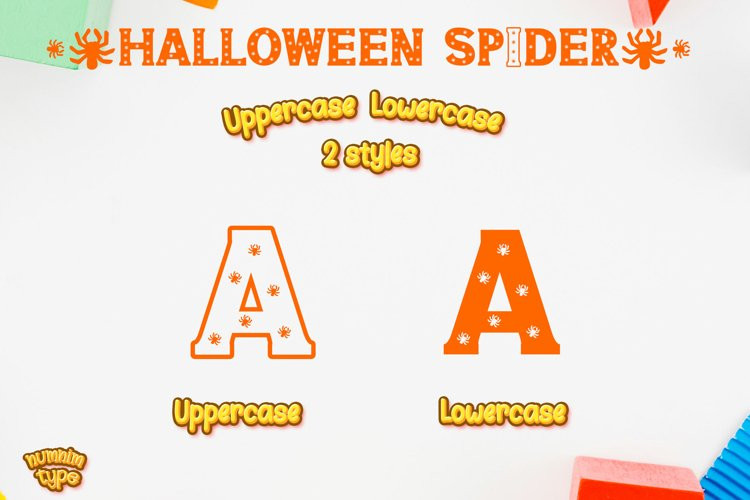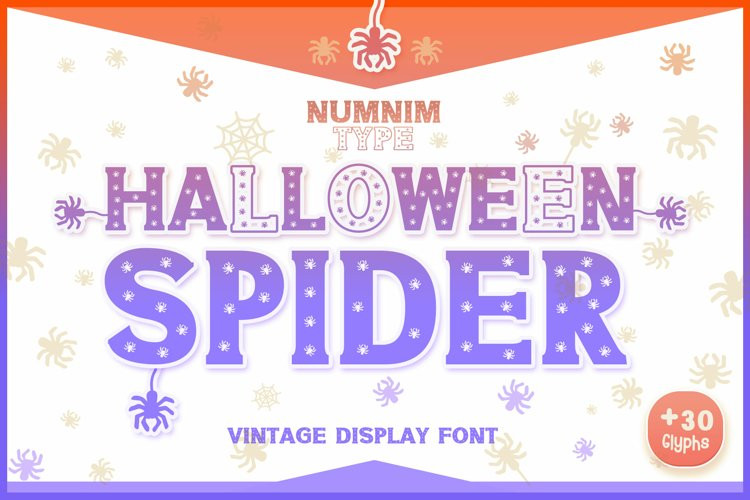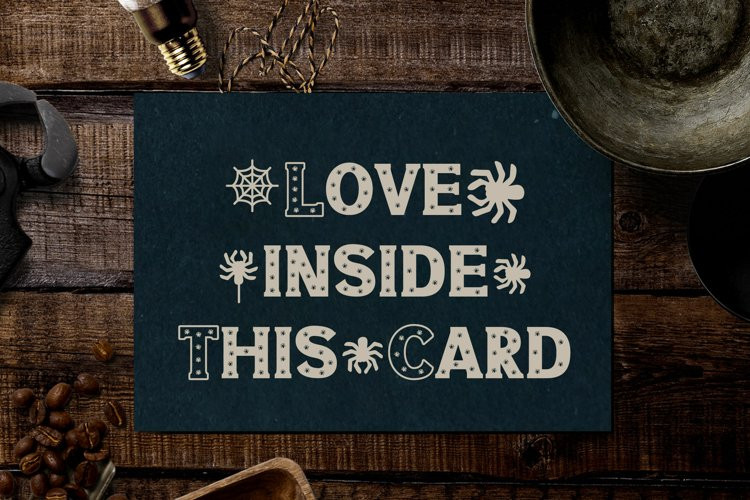
Halloween Spider Font
Halloween Spider FontHalloween Spider is a cool and scary looking display font. This font is PUA encoded which means you can access all glyphs and swashes with ease!